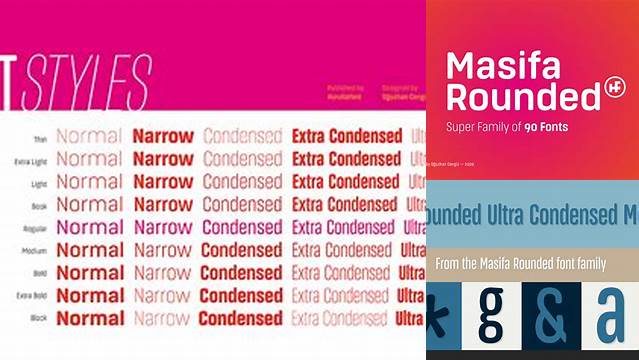
Masifa Rounded: Free Font Guide & Design Tips
Masifa Rounded Extra Condensed Medium Free: Your Go-To Font Guide
Hey there, font enthusiasts! Ever stumbled upon a typeface that just screams design versatility? Well, look no further because today, we're diving headfirst into the world of Masifa Rounded Extra Condensed Medium Free. This font family is more than just letters; it's a statement, a tool, and your new best friend for all things design. So, buckle up, because we're about to explore everything from its unique characteristics to how you can use it to create stunning visuals. From headings to body text, this font family is like a chameleon, adapting to the context you put it in. We will also dive into how it contrasts against other fonts, and where this font family excels. Masifa Rounded Extra Condensed Medium Free is a typeface you won't want to miss out on.
First things first, let's get acquainted with what makes Masifa Rounded Extra Condensed Medium Free tick. Imagine a font that's both modern and approachable. It's got that rounded, friendly vibe, but with an extra condensed twist, making it perfect for when you need to squeeze a lot of text into a small space. The 'medium' weight gives it a solid presence without being overpowering, and the 'extra condensed' part is perfect for a wide range of projects. Because of this, you can get a big impact in a small space, and for a designer, that is gold! This font is the kind of font that you can use over and over again. It also has a free version that is good for testing out your ideas, so you can get a good feel on how to use it. So, what are we waiting for? Let's dive in deep and get all the facts about this great font!
Understanding the Core Characteristics
Masifa Rounded Extra Condensed Medium Free isn't just another font; it's a carefully crafted design. The rounded terminals give it a soft, inviting feel, while the extra-condensed nature adds a touch of modernity and efficiency. It's like the perfect blend of comfort and sleekness. The fact that it's free is just the cherry on top. This means you can start experimenting with this font without spending a dime. It's all about making design accessible, right? This font is the perfect font for any design or creative project. Many people are looking for a great font to use, and this one would be on the top of the list because it is free. If you are looking for something to use, you should not look any further! This font has a lot to offer and you will love the overall presentation of this font family. Let's go over some of the core characteristics of this font family.
- Rounded Terminals: The rounded ends on the strokes give Masifa Rounded Extra Condensed Medium Free a friendly and approachable feel. It softens the overall look, making it easier on the eyes and more inviting to read. This is great for body text and headings alike.
- Extra Condensed: The condensed nature of the font is a space-saver. It allows you to fit more text in a smaller area without sacrificing readability. This is especially useful for headlines, subheadings, and any design where space is at a premium.
- Medium Weight: The medium weight strikes a perfect balance between boldness and subtlety. It's not too heavy to be distracting, nor too light to get lost. It's a versatile weight that works well in various contexts.
When choosing a font, the little details matter! Masifa Rounded Extra Condensed Medium Free has all the details that will help your design come to life. It is hard to find a good font that is also free to use, but it is not hard when you are looking at Masifa Rounded Extra Condensed Medium Free. Make sure to take advantage of this great opportunity to make your design beautiful!
Applications: Where to Use Masifa Rounded Extra Condensed Medium Free
Now that we know what Masifa Rounded Extra Condensed Medium Free is all about, let's talk about where it shines. This font is a chameleon, so it can be used in many scenarios! Here are some ideas for using it and making the best design:
- Headlines and Titles: The extra-condensed design makes Masifa Rounded Extra Condensed Medium Free ideal for headlines. The bold and rounded feel will make it stand out and catch the reader's attention instantly.
- Subheadings: You can use it to create an effective visual hierarchy and guide your audience. It's great for breaking up text and drawing attention to key information. It also has a good presentation, and it's very readable!
- Website Design: Whether you are designing a website or an app, this font is perfect for bringing your vision to life. This will allow your content to be delivered and perceived very easily.
- Logos and Branding: This font is perfect for creating a professional and modern look. It is clean and bold, so it will go great with any logo you are thinking about.
- Posters and Flyers: This is one of the best ways to get the most out of the font. The condensed nature of the font allows for maximum impact on a flyer or poster. It is perfect for catching people's attention!
- Social Media Graphics: Create attention-grabbing graphics for your social media. The font will make it easier to catch people's eyes. This font has a good presentation and it is very readable!
- Body Text (with caution): While not its primary strength, Masifa Rounded Extra Condensed Medium Free can be used for body text in some cases. However, consider using a slightly larger size and ensuring good line spacing to maintain readability. It is not the first choice when deciding what font to use for the body text, but it is a good option.
Masifa Rounded Extra Condensed Medium Free really is versatile, and it gives you a lot of options. However, like with any font, it's important to consider the context and your specific design goals. Let your creativity run wild, and don't be afraid to experiment. This font family is something that can go a long way! Whether you're creating a website, a poster, or a logo, this font has the flexibility to adapt to any project.
There you have it, guys! Masifa Rounded Extra Condensed Medium Free is a fantastic font choice for anyone looking for a modern, versatile, and free typeface. Its rounded design, extra condensed style, and medium weight make it perfect for a variety of applications. From headlines to social media graphics, this font has something to offer. The extra condensed part of the font family makes it perfect for websites and apps. It is very readable and eye-catching. It's all about making your designs look great, and this font will help you do just that. This font is very unique and will make any design look amazing. The fact that it is free makes it accessible for everyone, so be sure to take advantage of this opportunity! So, go ahead, download Masifa Rounded Extra Condensed Medium Free, and start creating. Happy designing!